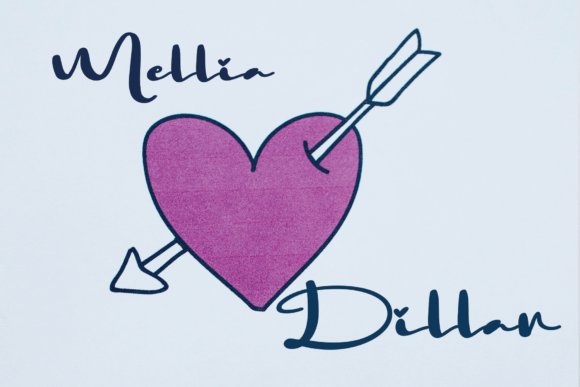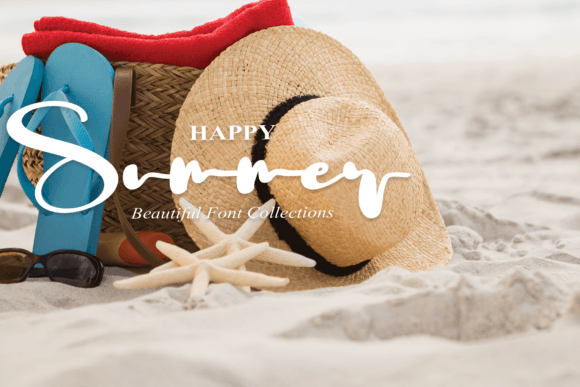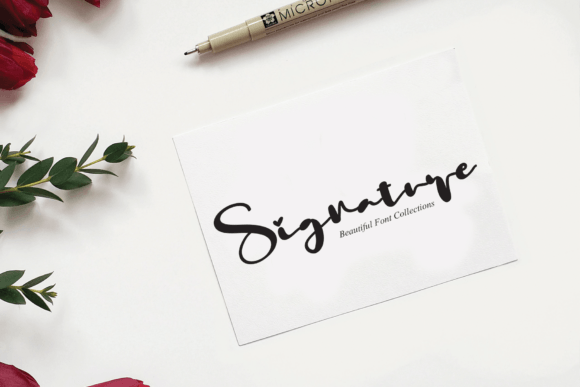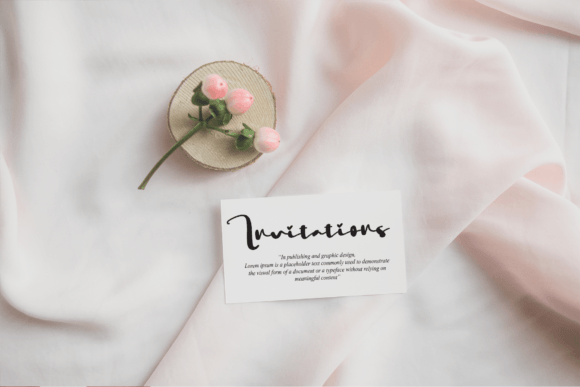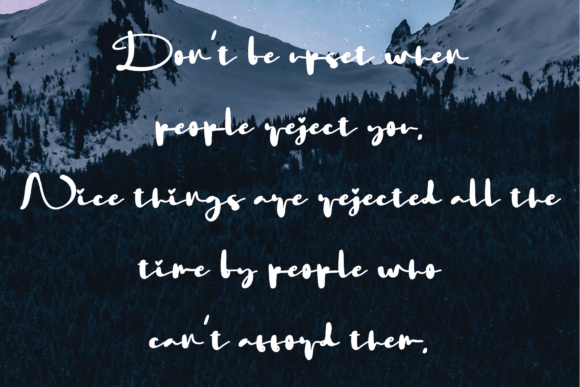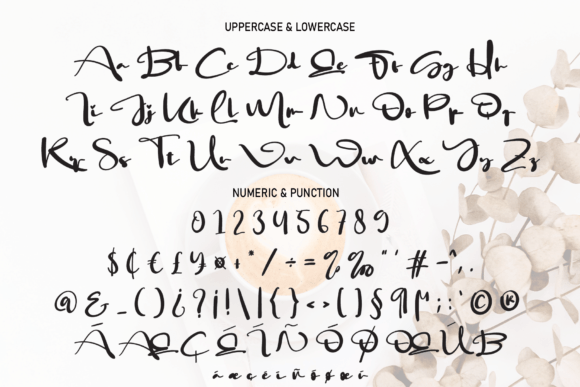
Introducing Happy Darling Font: The Sweet and Sassy Handwritten Font for Your Design Needs
Are you on the hunt for a font that exudes joy, romance, and playfulness? Look no further than Happy Darling Font, a sweet and cursive handwritten font that’s perfect for adding a touch of whimsy to your designs. This gentle font is versatile and can be used on a variety of design ideas, making it an excellent addition to your font collection.
The Characteristics of Happy Darling Font
Happy Darling Font is a beautifully crafted handwritten font that’s characterized by its flowing cursive script and sweet, gentle touch. The font features:
• Sweet and cursive handwritten style: Happy Darling Font boasts a classic cursive script with a playful twist, making it perfect for designs that require a touch of elegance and whimsy.
• Joysful and romantic feel: The font’s gentle and flowing script evokes feelings of joy and romance, making it ideal for wedding-related designs, greeting cards, and other projects that require a touch of warmth.
• Versatility: Happy Darling Font can be used on a wide range of design projects, from branding and logos to fashion and marketing promotions.
Perfect Use Cases for Happy Darling Font
Happy Darling Font is an excellent choice for a variety of design projects, including:
• Branding and logos: Add a touch of elegance and whimsy to your brand’s identity with Happy Darling Font.
• Wedding designs: Create beautiful wedding invitations, stationery, and decorations with this romantic font.
• Greeting cards: Use Happy Darling Font to create heartfelt and personalized greeting cards for special occasions.
• Fashion and lookbooks: Add a touch of sophistication and style to your fashion designs and lookbooks with this beautiful font.
• Marketing promotions: Use Happy Darling Font to create eye-catching marketing materials that exude elegance and whimsy.
Why Choose Happy Darling Font?
So, why should you choose Happy Darling Font for your design needs? Here are just a few reasons:
• Elegant yet casual: Happy Darling Font strikes the perfect balance between elegance and casualness, making it suitable for a wide range of design projects.
• Unique and eye-catching: This font’s unique and playful script is sure to grab attention and make your designs stand out.
• Easy to read: Despite its cursive script, Happy Darling Font is easy to read, making it perfect for body text and other applications where readability is crucial.
Tips for Using Happy Darling Font
To get the most out of Happy Darling Font, here are a few tips:
• Pair with contrasting fonts: Pair Happy Darling Font with contrasting fonts to create visual interest and add depth to your designs.
• Experiment with colors: Try out different colors and color combinations to find the perfect match for your design.
• Use it sparingly: While Happy Darling Font is beautiful, it can be overwhelming if overused. Use it sparingly to create emphasis and add visual interest.
In conclusion, Happy Darling Font is a beautiful and versatile handwritten font that’s perfect for adding a touch of joy and romance to your designs. With its elegant yet casual script, this font is suitable for a wide range of design projects, from branding and logos to wedding designs and marketing promotions. So why not give Happy Darling Font a try and see how it can elevate your designs?